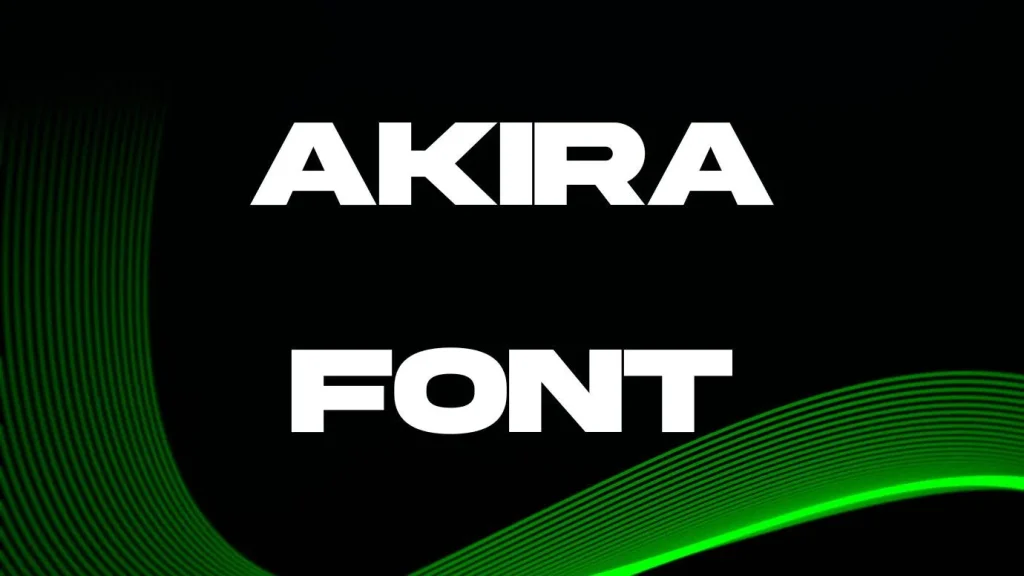
A sans serif style with a bold and dynamic style, Akira Font. The creative foundry known as Typologic is responsible for this contemporary typeface. The free version can be found here.
More than 100 powerful curves and geometric shapes combine the characters. Letters in this font are elegant and useful. For official applications and designs with a sophisticated feel, this appealing and bold typeface works well.
Due to the font’s remarkable and fascinating appearance, the creator of this typeface gained huge recognition throughout the entire globe. The premium version of this typeface comes in three weights super bold, outline, and light.
This lovely typeface is frequently chosen by designers to create beautiful designs that are appropriate for adding an exceptional touch to their work. This iconic font style is ideal for pairing with the very beautiful straight Knockout Font.
For official purposes, this lovely typeface works best in many businesses and institutions. The sans serif design is appropriate for animation logos, logos for cartoon movies, logos for films, etc.
You can utilize this stunning typeface with the golden sans font. This contemporary typeface can be used for the headlines of websites, television shows, and printed materials.
The lovely typeface has a fantastic appearance that works well for various creative applications. This elegant typeface works well for research and documentation.
Utilize this typeface while creating posters and images in design programs including Canva and Adobe Illustrator. The typeface is frequently used by web designers for their thumbnail designs and various website layouts.
It is a sans serif typeface that was formed by the Typologic. More than 100 powerful curves and geometric shapes combine the characters.
Several typefaces have a similar appearance to this lettering style but the Avenir Font is the alternative to the style.